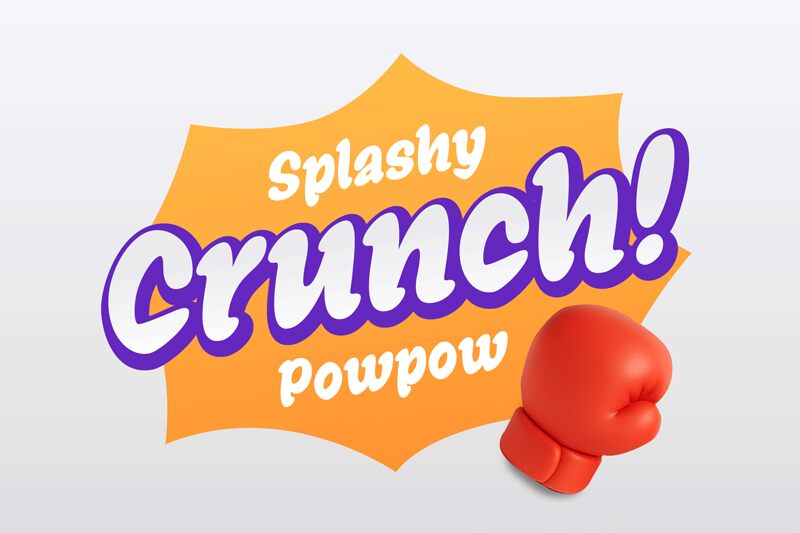
Snacko font by Eko Bimantara is a bold comic display font with retro-inspired, expressive curves and a casual aesthetic. The typeface holds a friendly appearance and high-impact that flatters every characterization. Even though it’s not all caps, the letters are of condensed nature which serves as an excellent visual cue.
Use Snacko in comic books, cartoon posters, greeting cards, social media posts, websites for kids or teens (design), fast-food restaurants online presentations/menus/catalogs, and more. Enjoy the free versatile fonts in book covers for fiction stories or movie posters – any place where you want to target youngsters and children!